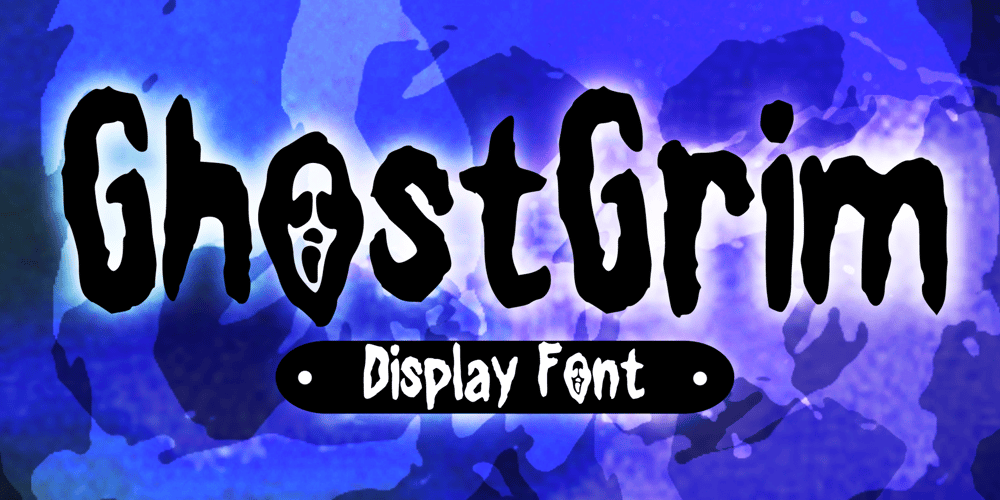
Ghost Grim Font Family was designed by Gabriel Valentinus and published by Mvmet. Ghost Grim contains 1 styles and family package options. Ghost Grim is a cool font inspired by vintage slasher horror movies and horror comics. It will be perfect for your horror and Halloween themed needs! You can use it for anything ranging from merchandise like t-shirts and clothing, for your scary book designs, Halloween party needs, greeting cards, stickers, posters, banners, or anything that needs a horror touch.